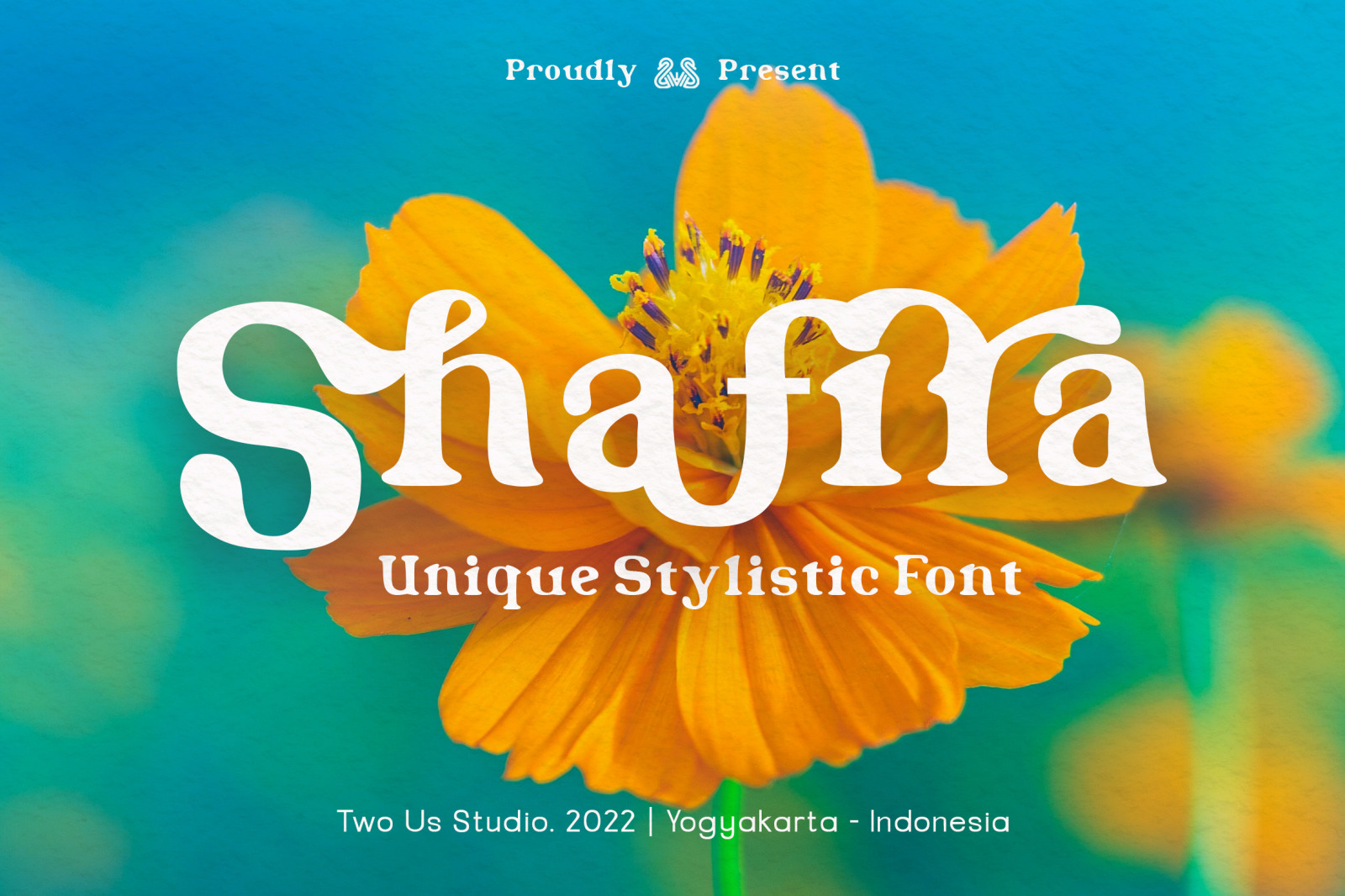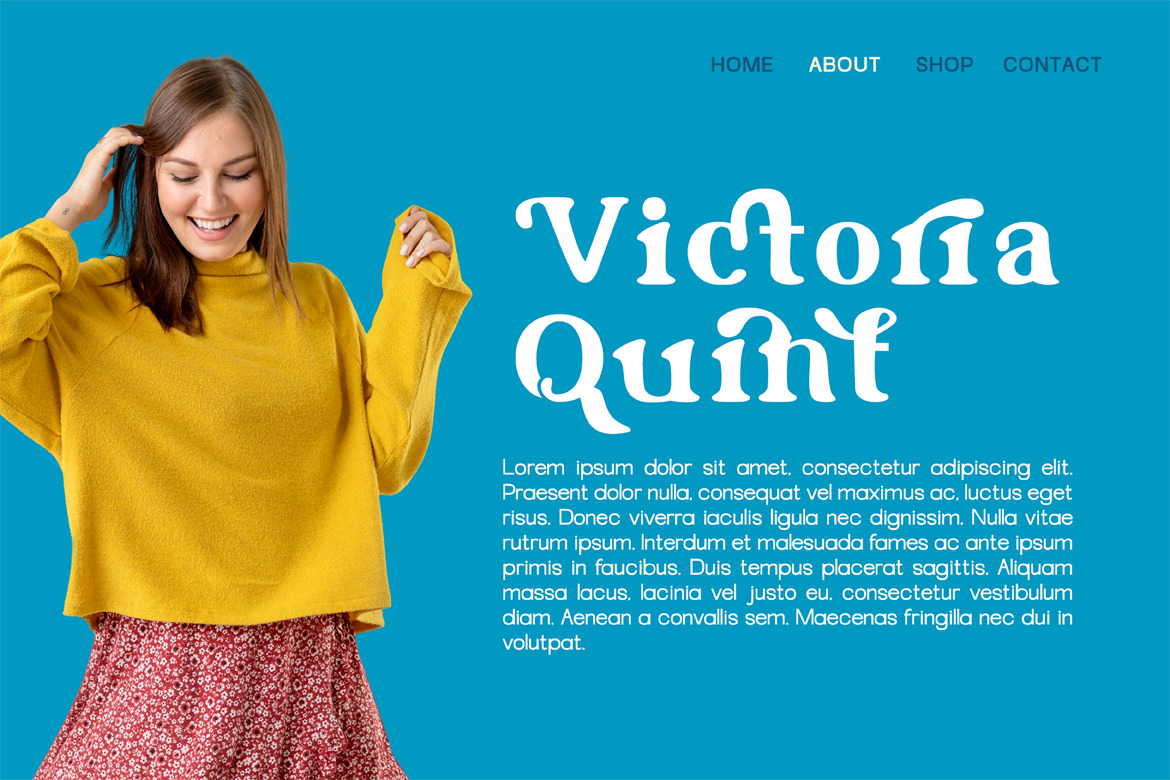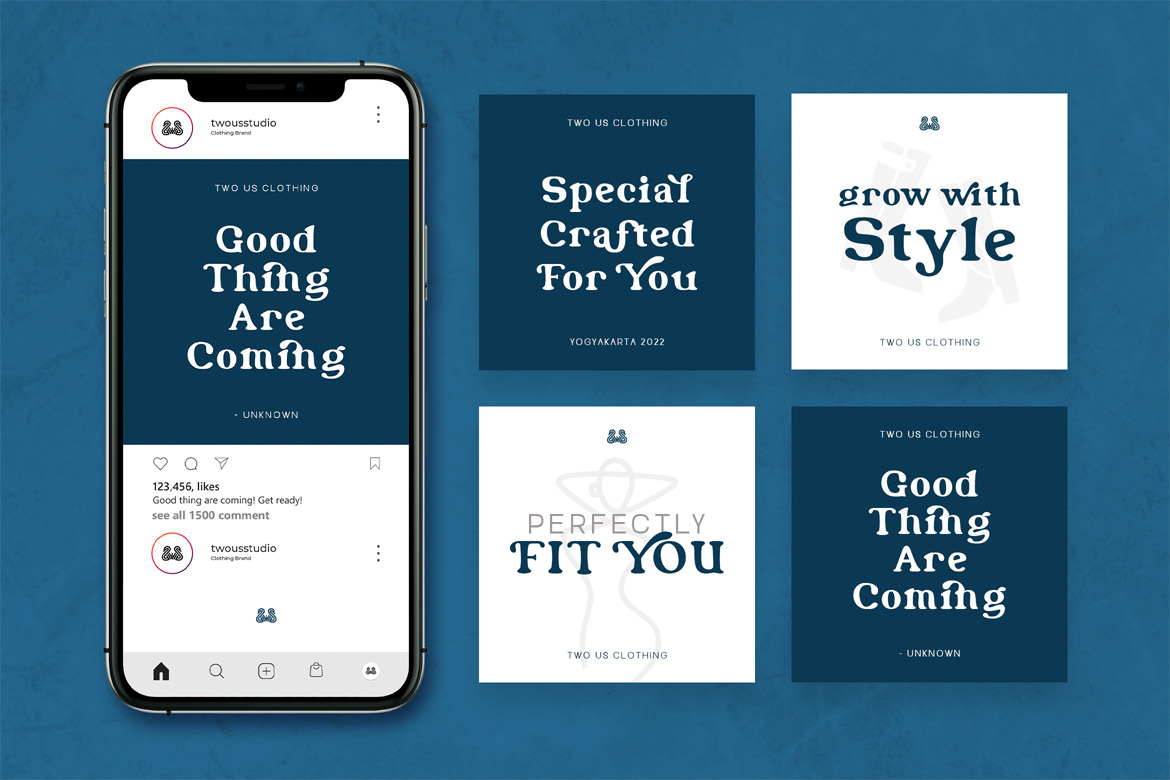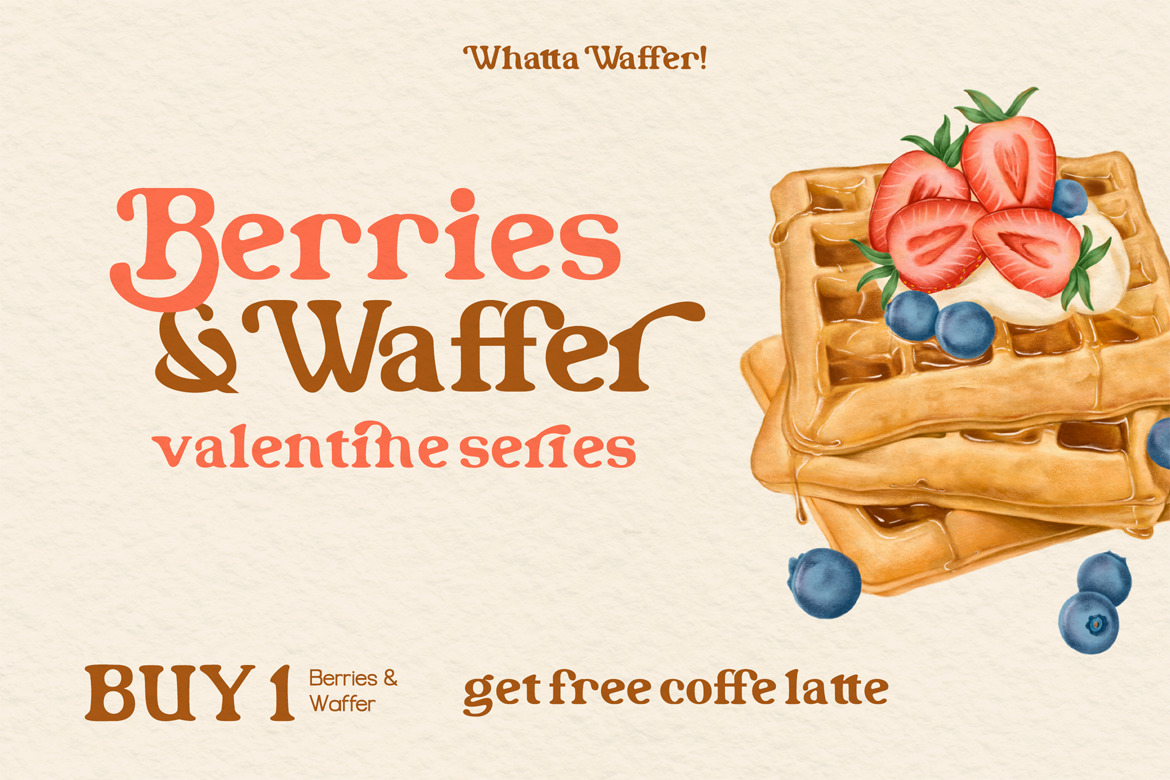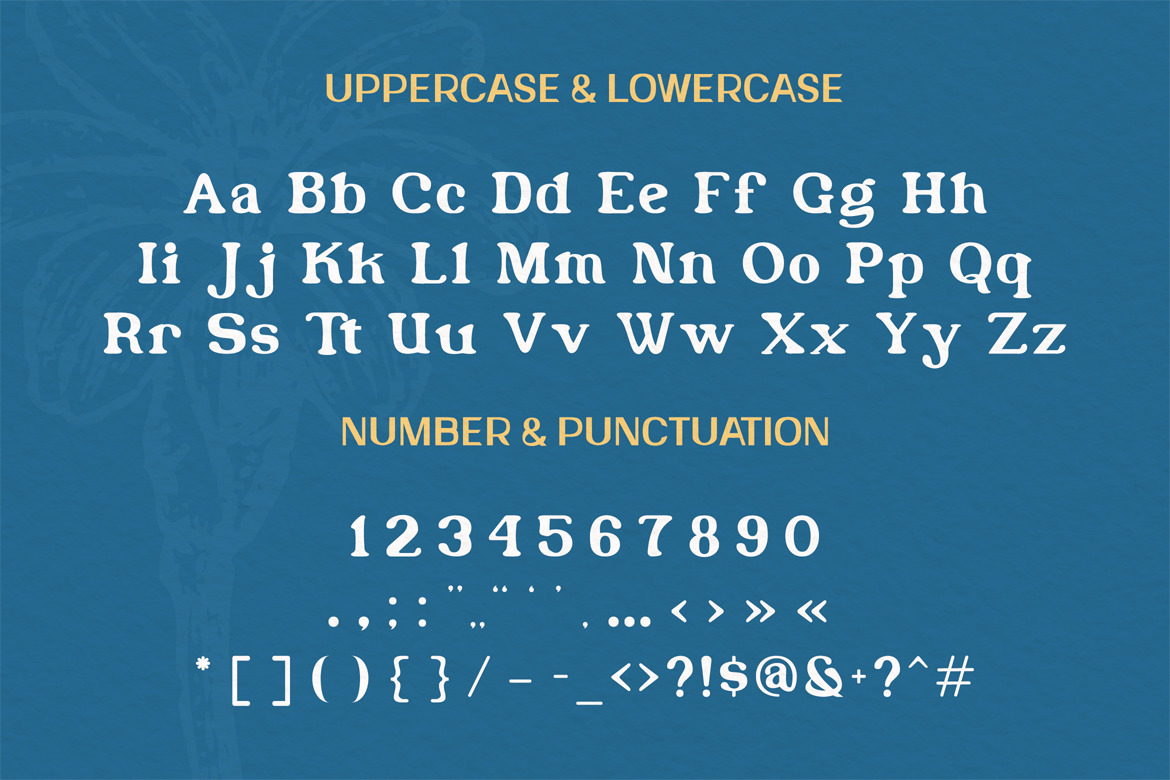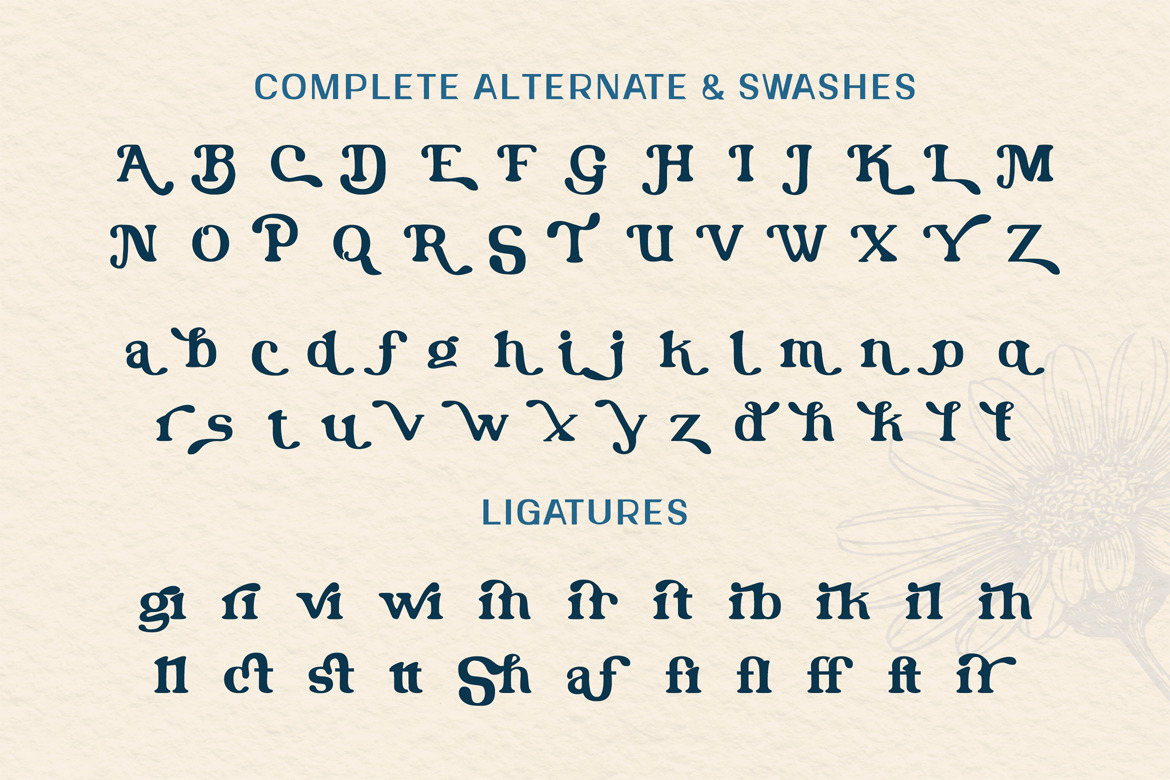
Shafira - Unique Stylistic Font
Shafira is a bold,stylish and unique font. This creative and fun font can easily become your favorite. It works great on books, magazines, social media posts, invitations, and so much more! So add this to your creations and take your designs to the next level!
Comes with ligatures & alternate character.